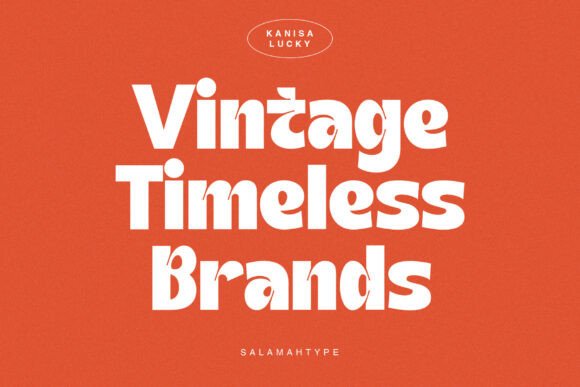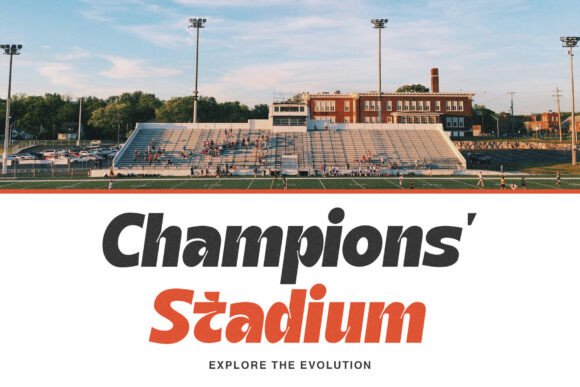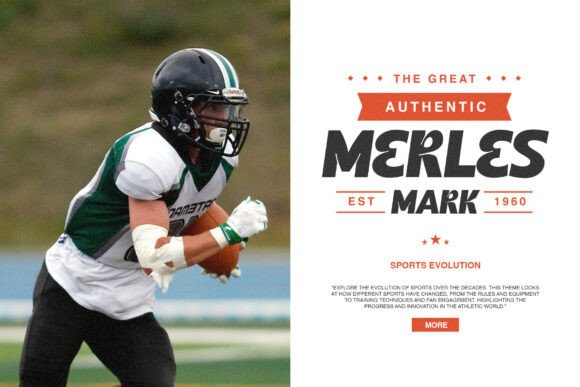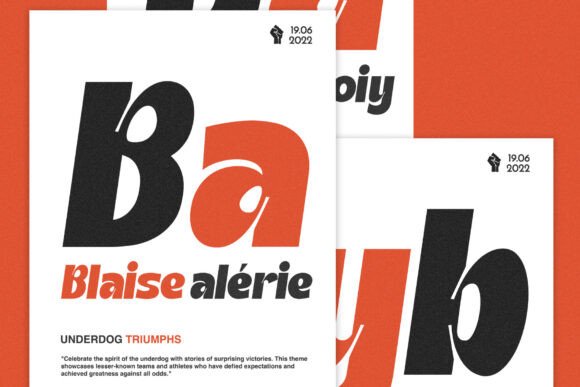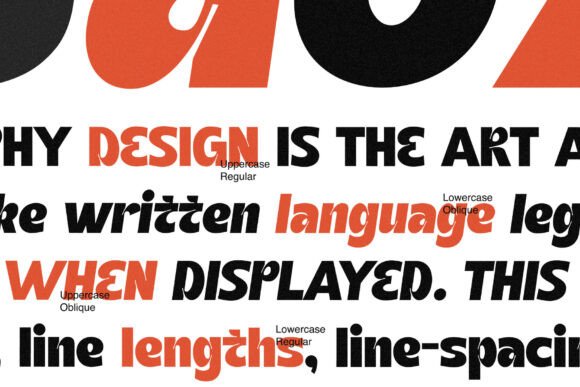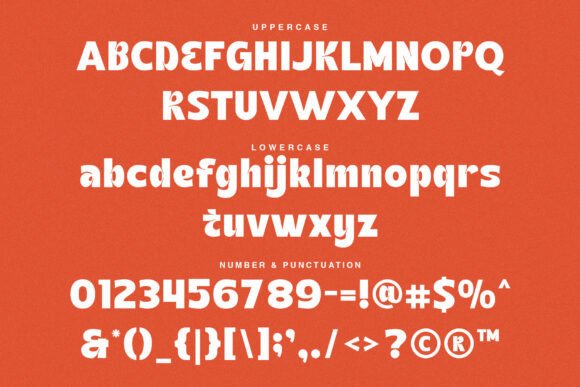
Introduction to Kanisa Lucky Font
Do you remember the moment when a new font caught your eye, and you knew it was going to elevate your next design project? That’s exactly what happened to many designers when they first laid eyes on the Kanisa Lucky Font. Its unique ink trap style is undeniably striking, making it a go-to choice for logos, headlines, and sport flyers. But what makes this font truly special is its flexibility – available in both regular and oblique styles, giving designers the freedom to create a strong presence or a dynamic look.
As a valuable resource for designers, the Kanisa Lucky Font offers high-quality typography that can take any creative project to the next level. With a transparent background, it’s easy to integrate into any design, whether you’re working on a free download or a paid project. Whether you’re a seasoned pro or just starting out, this font is sure to become a staple in your design toolkit.
Key Features of Kanisa Lucky Font
- Unique, hand-drawn design for a creative project, ideal for use as a design resource.
- Perfect for adding a personal touch to any design project, from posters to business cards.
Honest Review: Kanisa Lucky Font
Here are some things that I love about the Kanisa Lucky Font: ✨
- Unique and playful design style
- High-quality vector graphics
- Transparent background, making it easy to use with any design
However, I did encounter a few limitations: ⚠️
- Limited character set, which may not be ideal for longer text-based projects
- No bold or italic font weights, which can be restrictive
Overall, I’m impressed with the Kanisa Lucky Font, but I do wish it had a bit more versatility. If you’re looking for a fun and quirky font for a creative project, this might be the perfect choice. Just be aware of its limitations and use it accordingly.
Tips for Getting the Most Out of Kanisa Lucky Font
For optimal results, use Kanisa Lucky Font in conjunction with a high-quality image or background. Experiment with different font sizes, colors, and alignments to create a visually appealing design. You can also use the font in combination with other design elements, such as graphics and shapes, to create a unique and creative project.
Kanisa Lucky Font is suitable for a wide range of creative projects, including branding, marketing materials, and digital products. You can use the font to create eye-catching headings, titles, and slogans that stand out from the crowd. The font’s high-quality design and transparent background make it an ideal choice for designers looking for a versatile and stylish font.